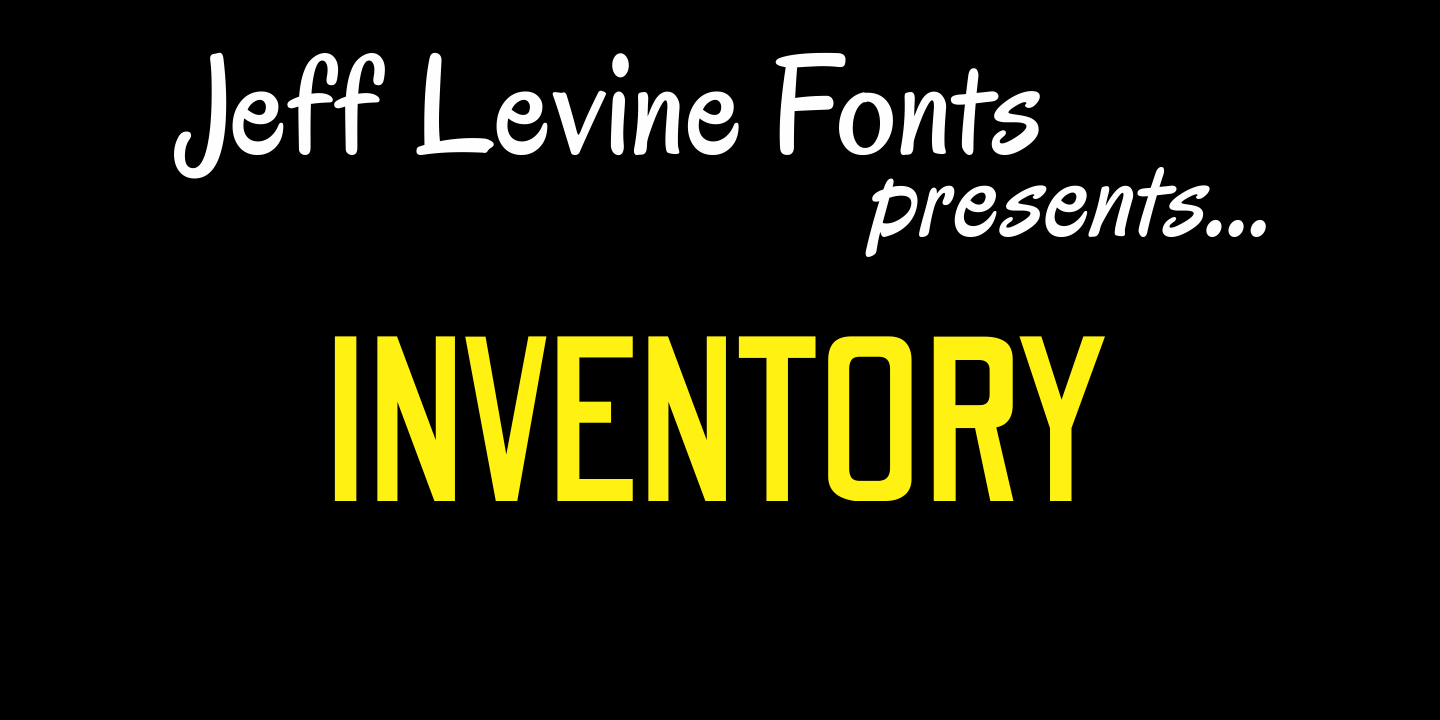
Inventory
Inventory JNL is based on a "solid letter" stencil where you trace the body of the letter and fill in the top and bottom connecting lines to each character. This is another font in Jeff Levine's series of digital designs based on classic lettering stencil guides.